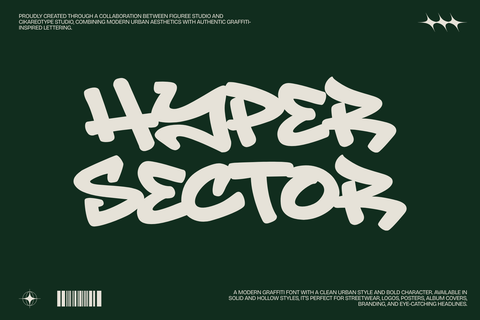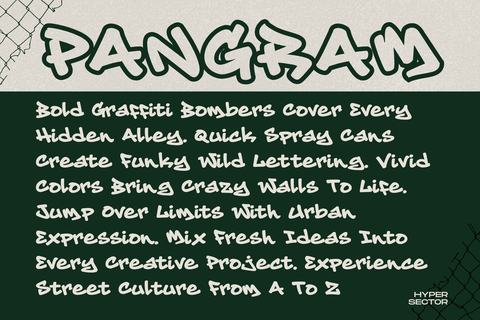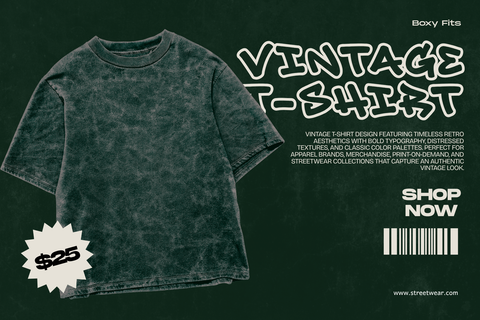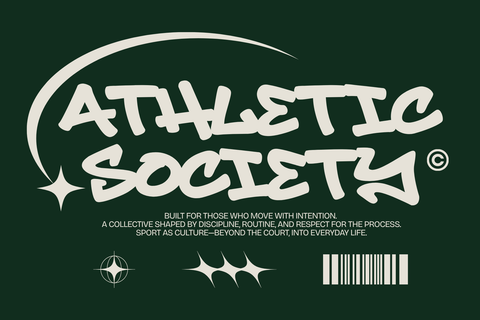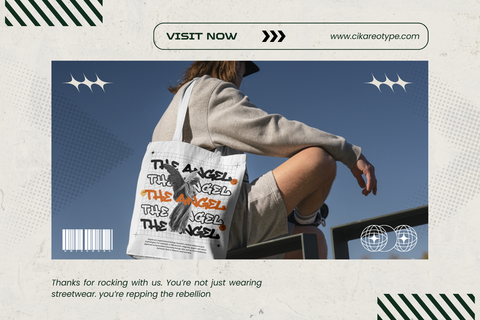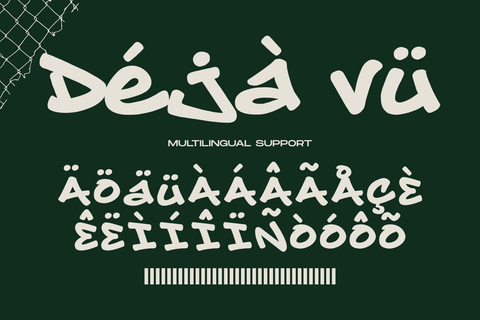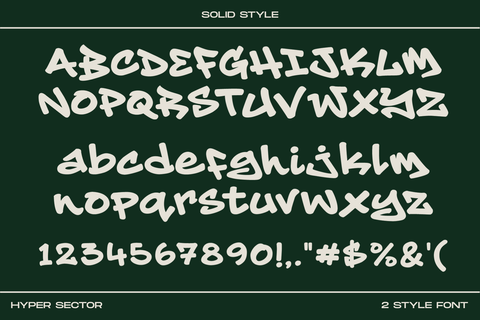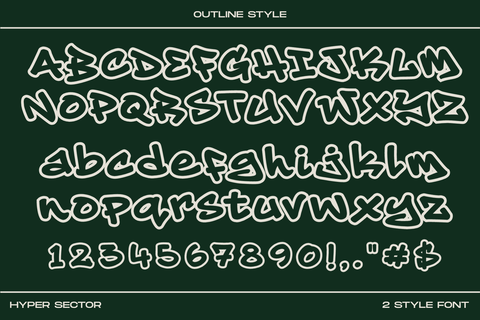
Hyper Sector – Modern Outlined Graffiti Font
Hyper Sector is a modern graffiti display font created for designers who want bold urban typography with a clean, contemporary attitude. Inspired by street lettering, marker tags, and modern city aesthetics, Hyper Sector transforms authentic graffiti energy into a polished typeface that is highly readable while maintaining a strong street-inspired personality.
Featuring two complete styles, Regular and Outline, Hyper Sector gives you the flexibility to create layered typography, eye-catching headlines, bold branding, and dynamic promotional graphics. The solid Regular style delivers strong visual weight, while the Outline version introduces depth, contrast, and modern graphic appeal. Used individually or combined together, both styles provide endless creative possibilities for professional design projects.
Unlike traditional graffiti fonts that often emphasize rough textures and exaggerated forms, Hyper Sector focuses on cleaner construction, balanced proportions, and modern composition. The result is a graffiti font that feels fresh, premium, and highly versatile across both print and digital media.
Hyper Sector includes uppercase characters, lowercase letters, numbers, punctuation, and multilingual support, allowing designers to build complete layouts with consistent visual rhythm. Every letter is carefully crafted to maintain bold presence while remaining easy to read, making it ideal for oversized titles and impactful branding.
This font performs beautifully for streetwear branding, apparel graphics, skate culture, sneaker promotions, music artwork, gaming visuals, YouTube thumbnails, esports branding, posters, flyers, event promotions, merchandise, stickers, packaging, logos, advertising campaigns, and social media graphics.
The combination of thick marker-inspired strokes and modern graffiti construction makes Hyper Sector especially effective for brands targeting youthful, energetic audiences. Whether creating fashion collections, urban campaigns, album covers, café branding, sports promotions, creative agencies, or lifestyle products, this typeface delivers bold typography that instantly grabs attention.
Hyper Sector also works exceptionally well for digital creators. Large display text remains crisp and impactful across websites, streaming graphics, mobile interfaces, online stores, banners, landing pages, hero sections, promotional ads, and digital presentations.
Its clean outlines allow designers to experiment with layered colors, shadows, gradients, textures, and graphic effects without sacrificing readability. The Outline style is particularly useful for creating modern logo systems, layered headlines, and striking promotional visuals.
Whether you're designing fashion branding, music promotions, gaming content, merchandise, or urban-inspired visual identities, Hyper Sector delivers contemporary graffiti typography with bold personality and outstanding versatility.